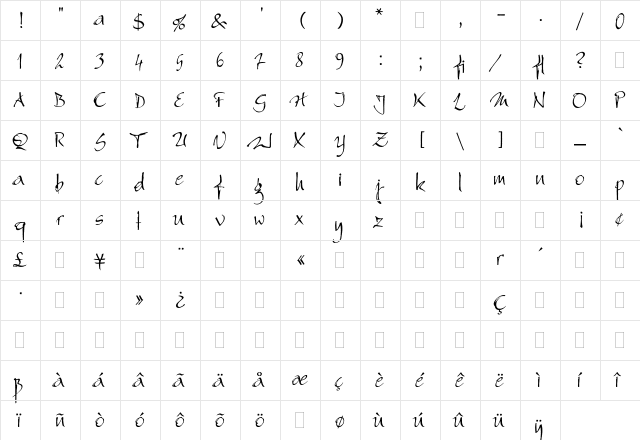
Bergell Plain
Design Context for Bergell Typeface
Bergell is a composed and adaptable typeface that performs quietly and consistently across a wide range of design contexts.
Pro Tip: Pair Bergell with a font of contrasting weight or personality to build a more expressive typographic hierarchy.